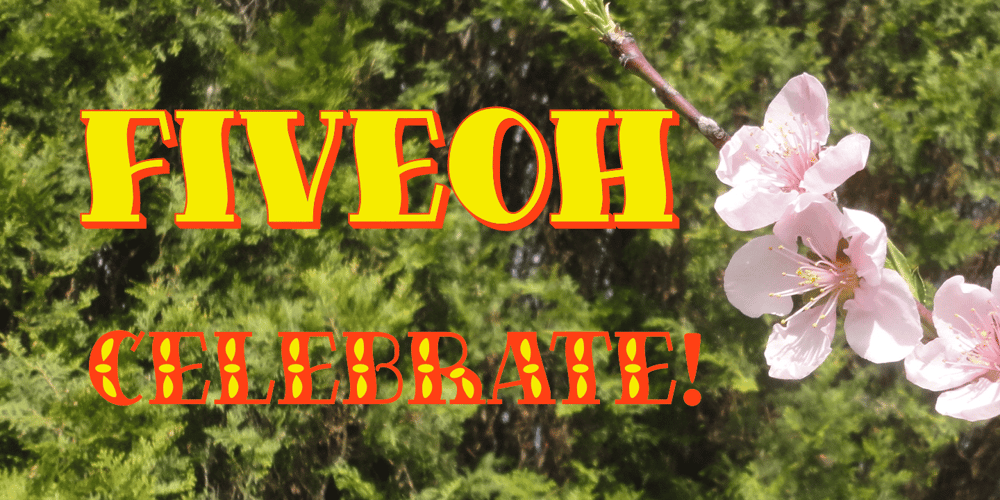
FiveOh Font Family was designed by Robert Schenk and published by Ingrimayne Type. FiveOh contains 4 styles and family package options. The FiveOh fonts are caps-only with extreme contrast.. They are decorative or display fonts with a carefree, wobbly look. FiveOh-One and FiveOh-Shadowed contain the same set of letters on upper and lower-case keys. FiveOh-Two, Three, and Stars contain different interior decorations on upper and lower cases. Thus there are eight different sets of letters in the five typefaces. FiveOh-One can serve as a base layer with the other four fonts layered on top of it to give letters with two colors.